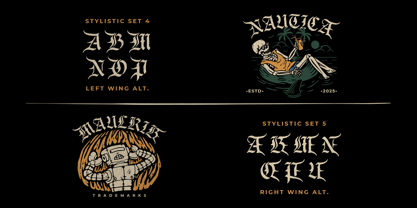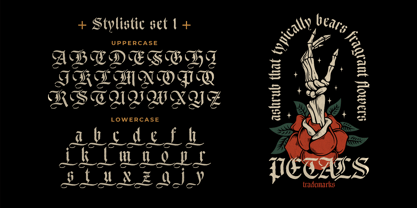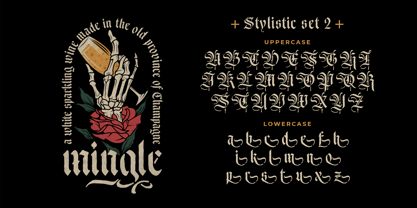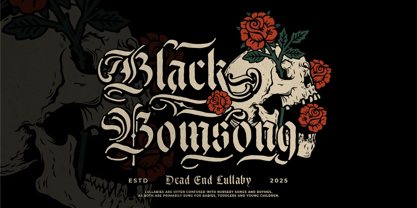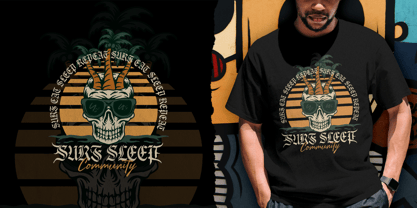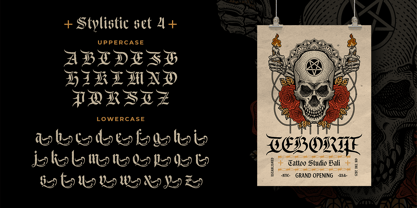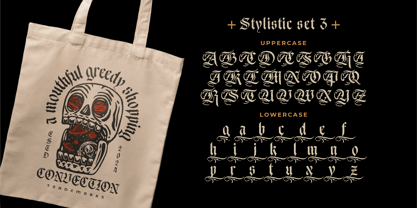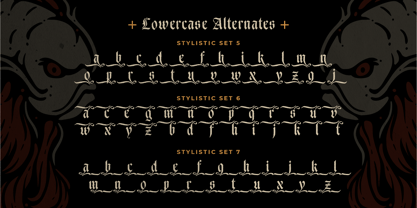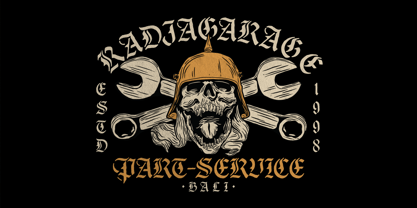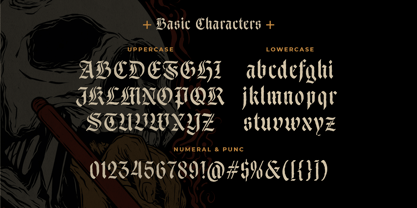
Ducky Black
by Alit Design
The Ducky Black Font Family was designed by Alit Suarnegara and published by Alit Design. Ducky Black contains 1 styles.
Ducky Black – A Vintage Blackletter Stencil Typeface
Step into a world of bold gothic elegance with Ducky Black, a meticulously crafted Blackletter Vintage Stencil Typeface that merges the timeless beauty of traditional blackletter with the practicality of stencil design. This typeface is perfect for artists, designers, and creatives who want to add a historic yet industrial feel to their projects.
With its sharp edges, dramatic strokes, and stencil-inspired cutouts, Ducky Black is ideal for branding, tattoos, packaging, posters, signage, apparel, and vintage-themed designs. Whether you’re crafting a medieval-style logo or a bold streetwear design, this typeface brings character, depth, and authenticity to your typography.
Key Features:
Extensive Character Set – 912 Characters
Ducky Black includes a rich selection of uppercase, lowercase, numbers, punctuation, and symbols, ensuring flexibility across various design needs. The extended character set also supports different typographic styles and artistic arrangements.
Alternatives & Swashes for Customization
Unlock creative freedom with multiple alternative characters and swashes, allowing you to add unique flourishes and decorative elements to your text. These features give you the ability to create diverse and expressive typography styles.
Stencil-Optimized Design
Unlike traditional stencil fonts that may have weak points in their perforations, Ducky Black is engineered to keep the integrity of the paper intact when cut or printed. This makes it highly functional for stencil-based artworks, screen printing, and signage.
Natural Ligatures for a Seamless Look
This typeface includes carefully designed ligatures to ensure that letter combinations flow naturally and maintain aesthetic balance. These ligatures enhance readability while preserving the font’s bold gothic style.
Multilingual Support for Global Use
Designed for international versatility, Ducky Black supports a wide range of languages, including English, German, French, Spanish, Italian, Portuguese, and many others. No matter where you are, this font ensures your message is communicated with style and clarity.
Perfect for:
🔥 Tattoos & Gothic Branding – Capture the essence of bold, medieval aesthetics.
🔥 Vintage Posters & Signage – Add an antique touch to your print and digital artwork.
🔥 Merchandise & Apparel – Stand out with custom lettering on T-shirts, hoodies, and accessories.
🔥 Packaging & Labels – Give a retro-industrial vibe to products and packaging.
🔥 Book Covers & Album Art – Set the perfect tone for historical or alternative genres.
Why Choose Ducky Black?
With its powerful blackletter roots, vintage appeal, and stencil-friendly design, Ducky Black is more than just a font—it's a statement. Whether you're designing for print, digital, or stencil-based applications, this typeface ensures every project carries an authentic, bold, and artistic touch.
Unleash the power of tradition and innovation with Ducky Black – a font that speaks volumes!